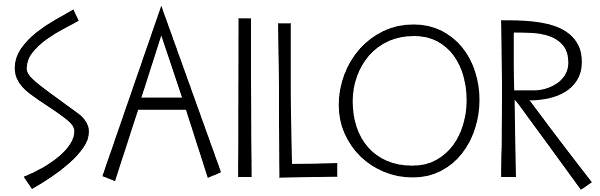
Sailor
Sailor is the digital rendition of a film type that was popular in the early- to late-1970s. The type was called West Futura Casual at Photo-Lettering by David West. Some of the letter shapes of the original were replaced with more contemporary...